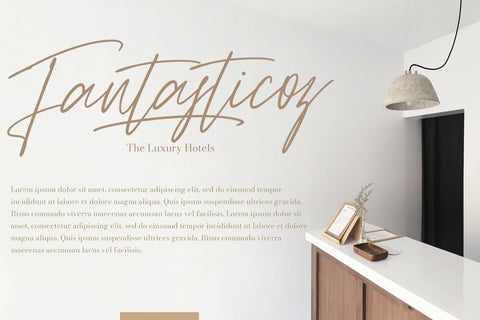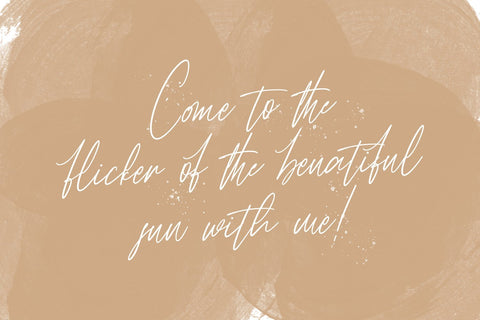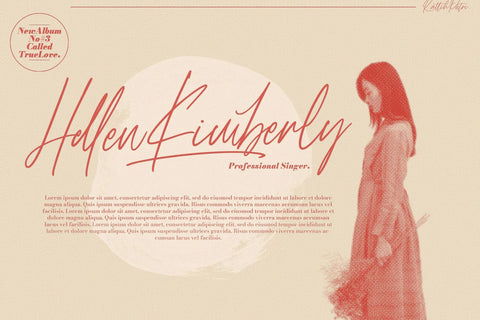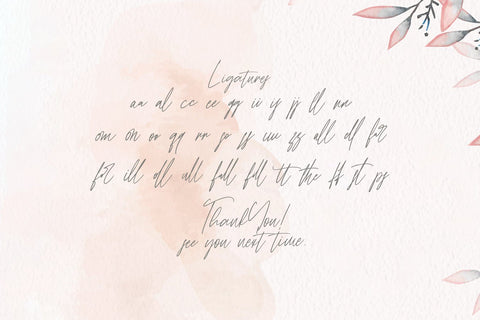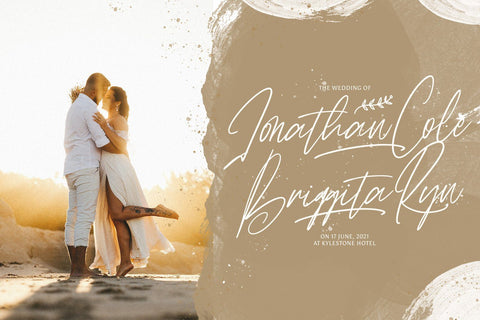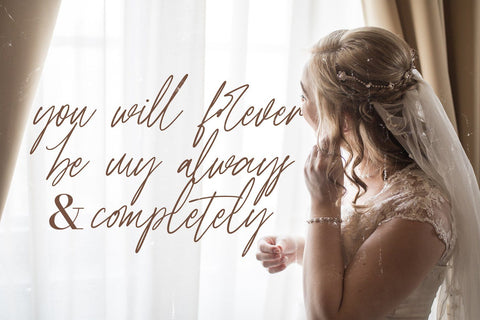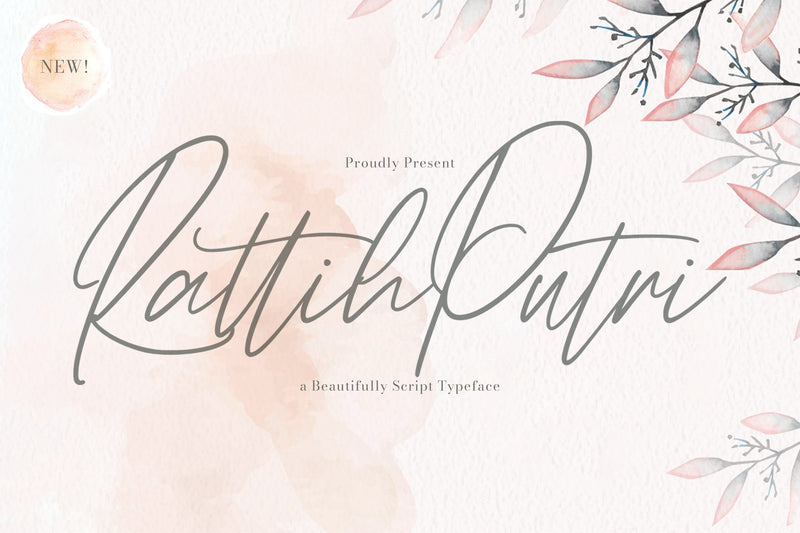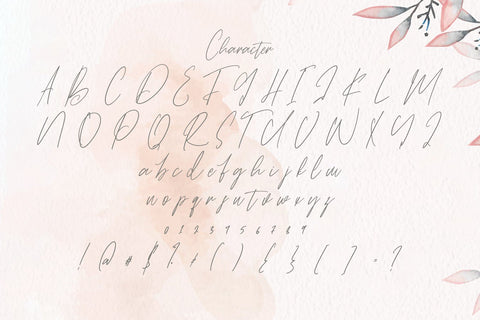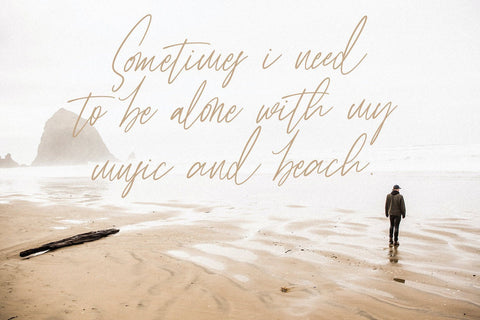
Rattih Putri - Handwritten Font
Introducing Rattih Putri - Handwritten Font
Rattih Putri is a delicate, elegant and flowing handwritten font. It has beautiful and well balanced characters and as a result, it matches a wide pool of designs. Add it to your most creative ideas and notice how it makes them come alive!